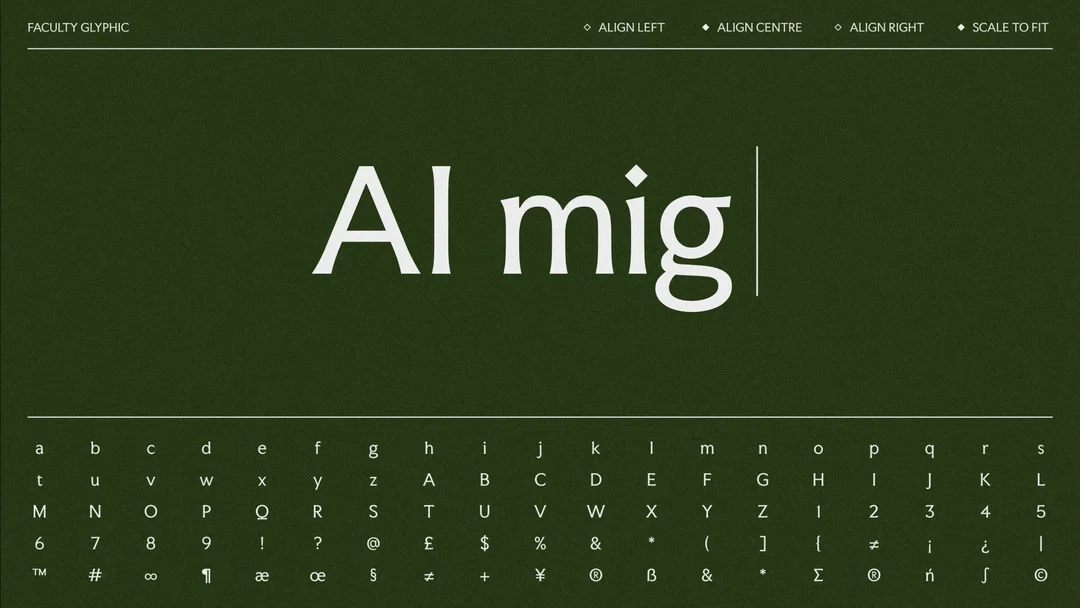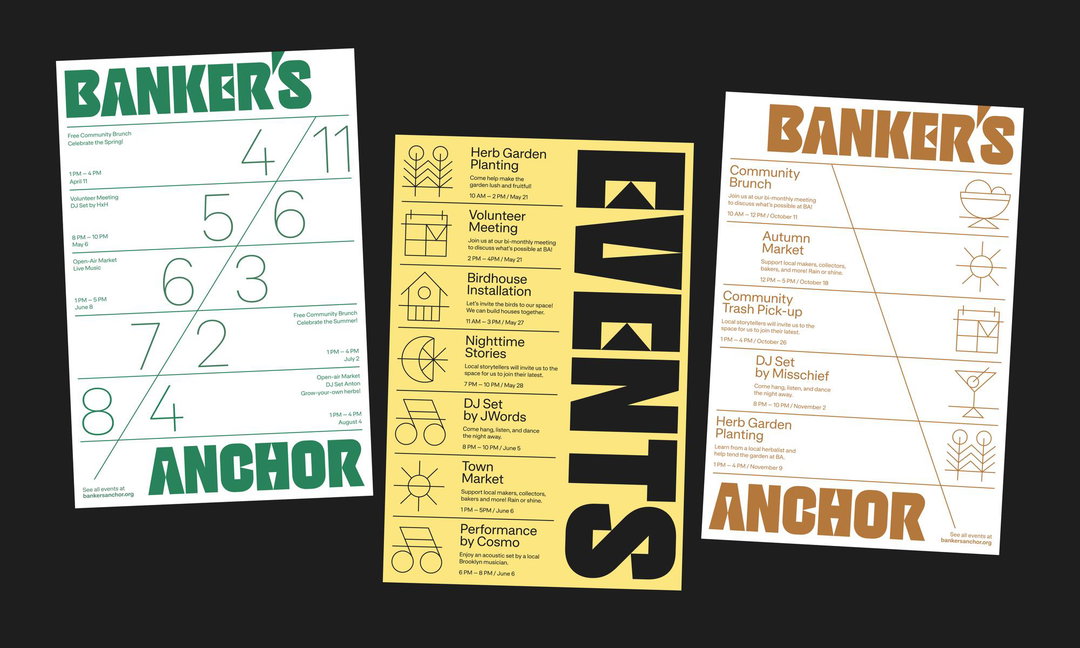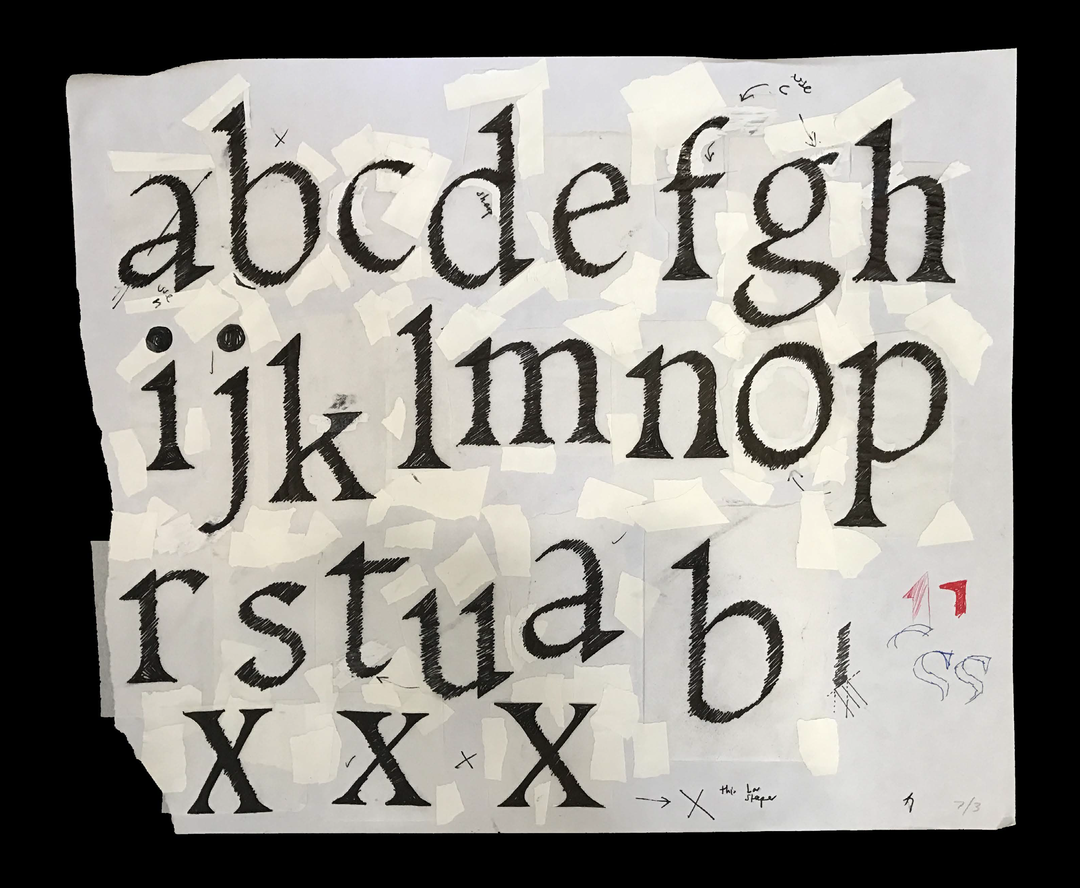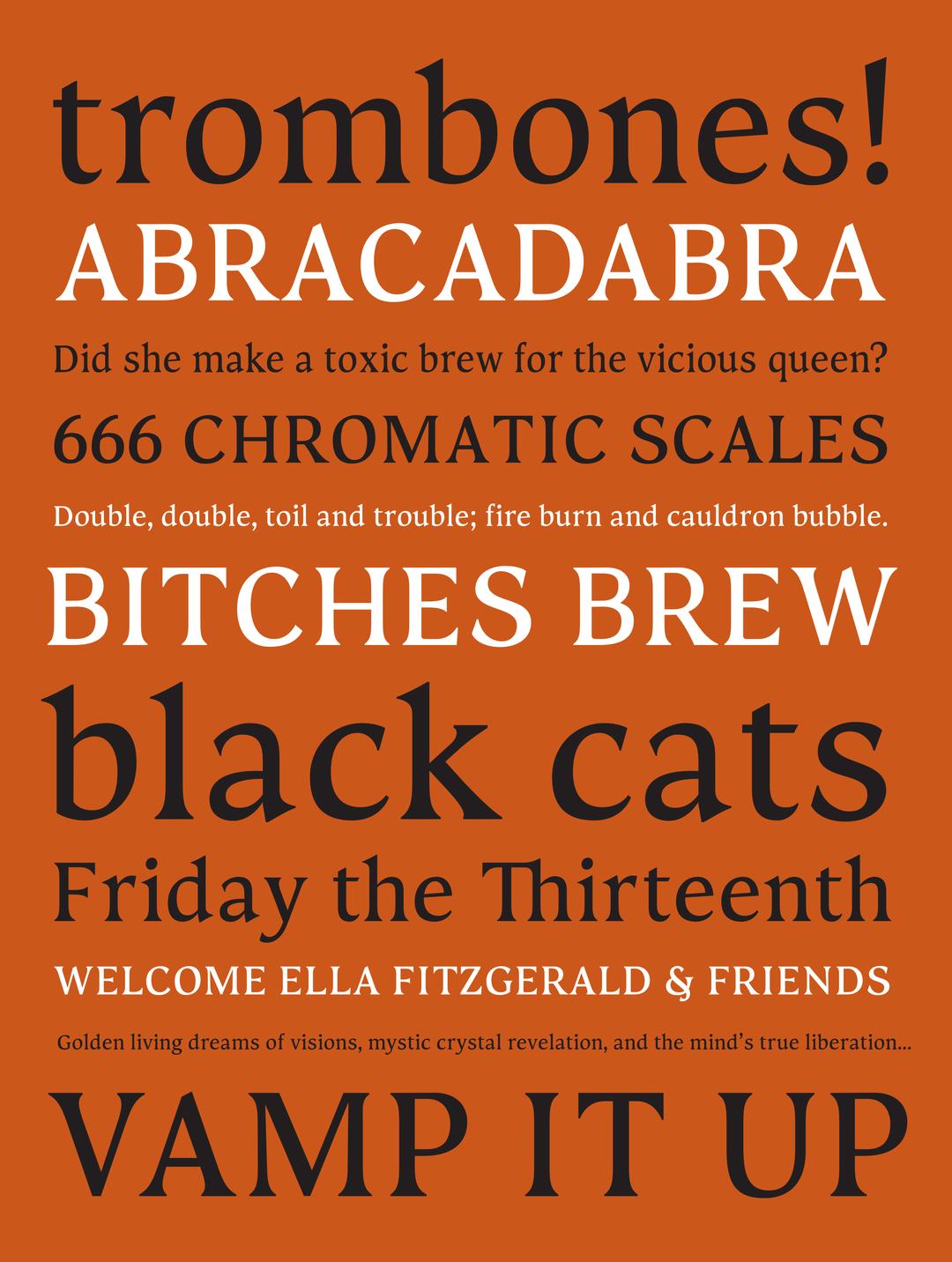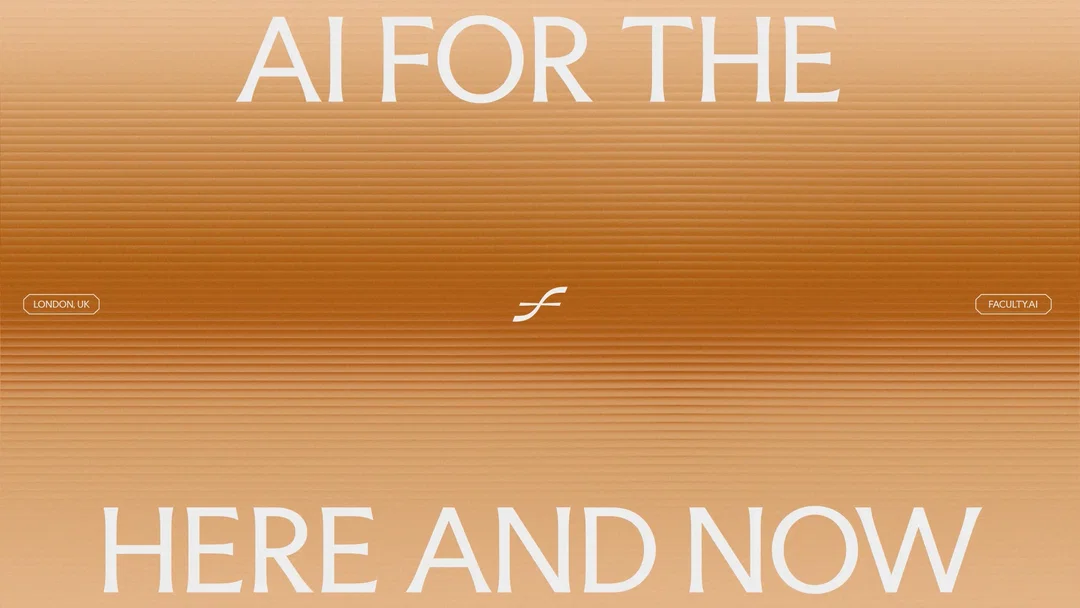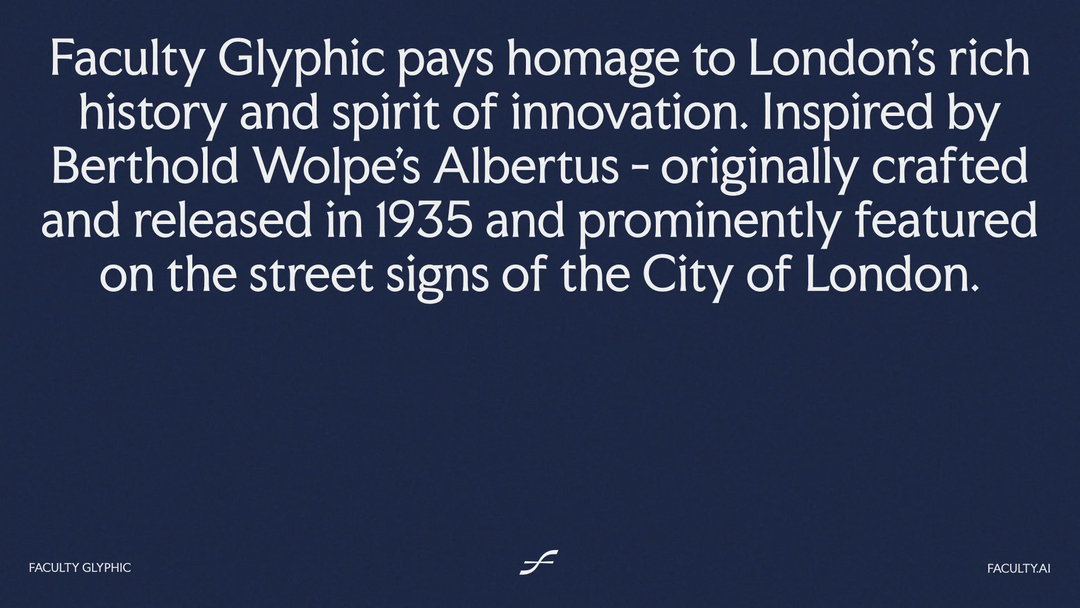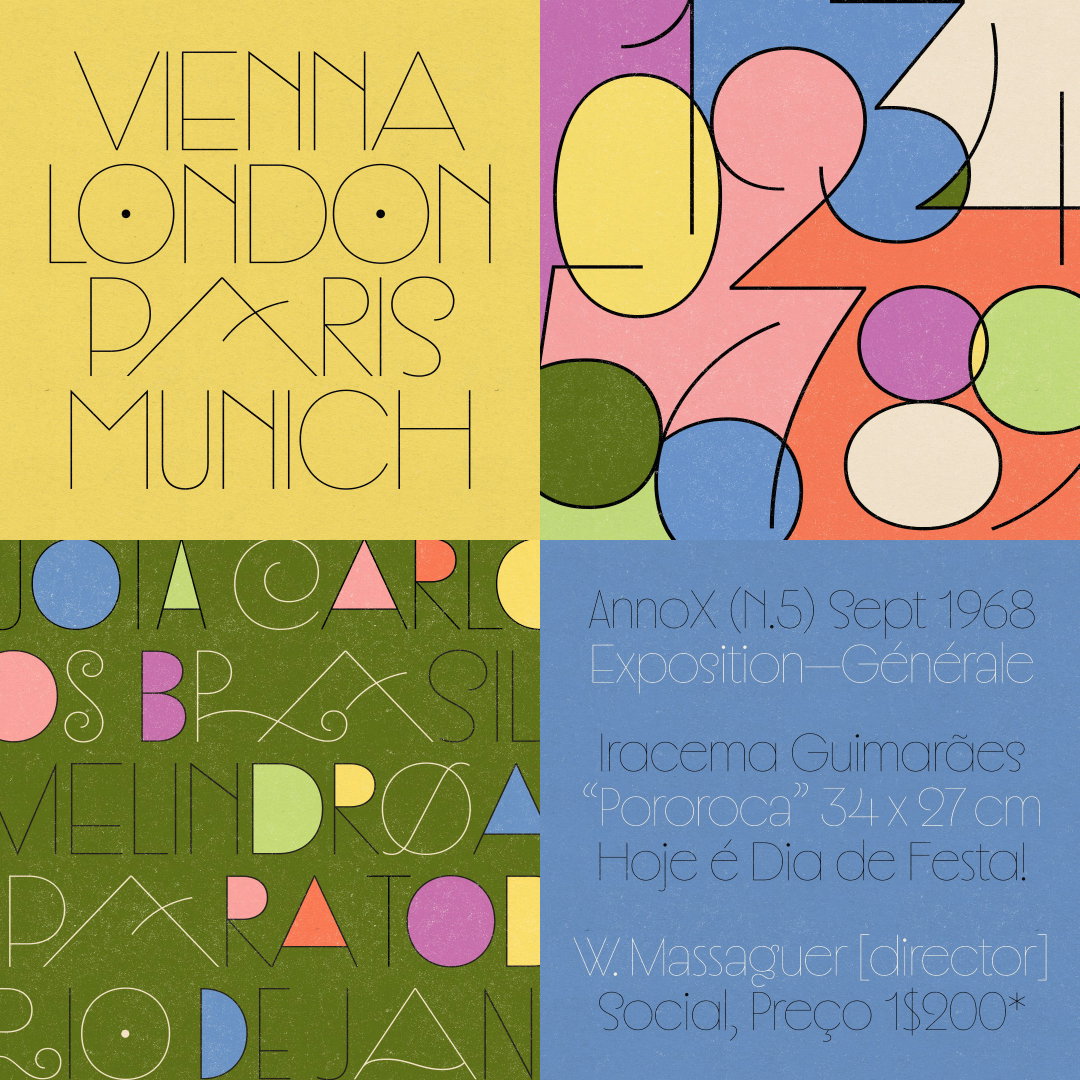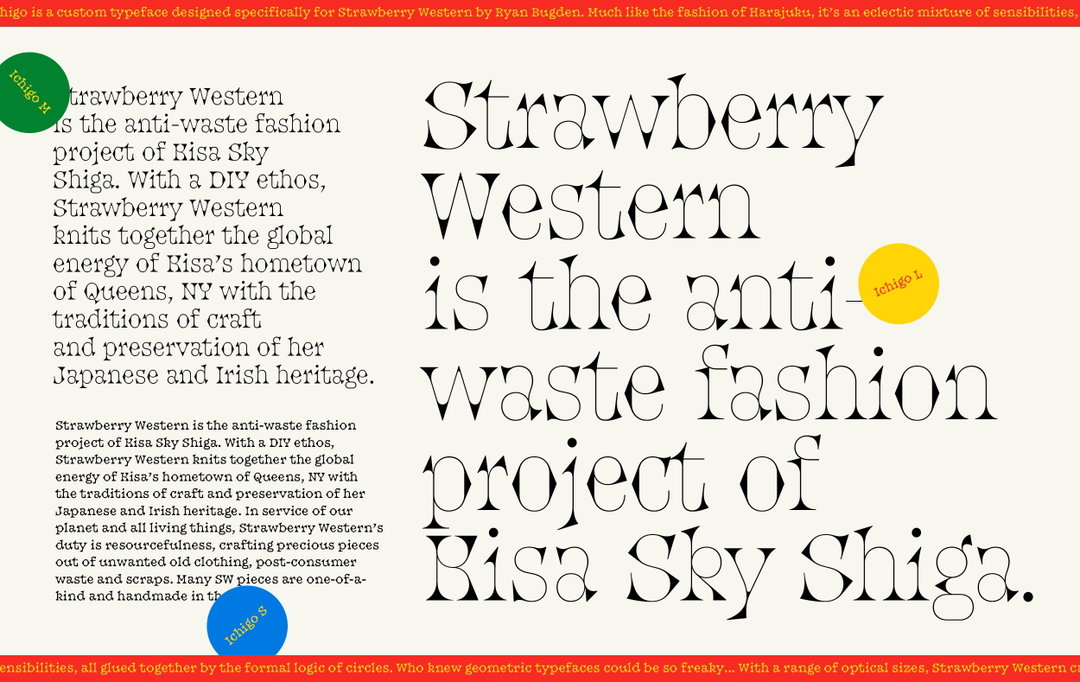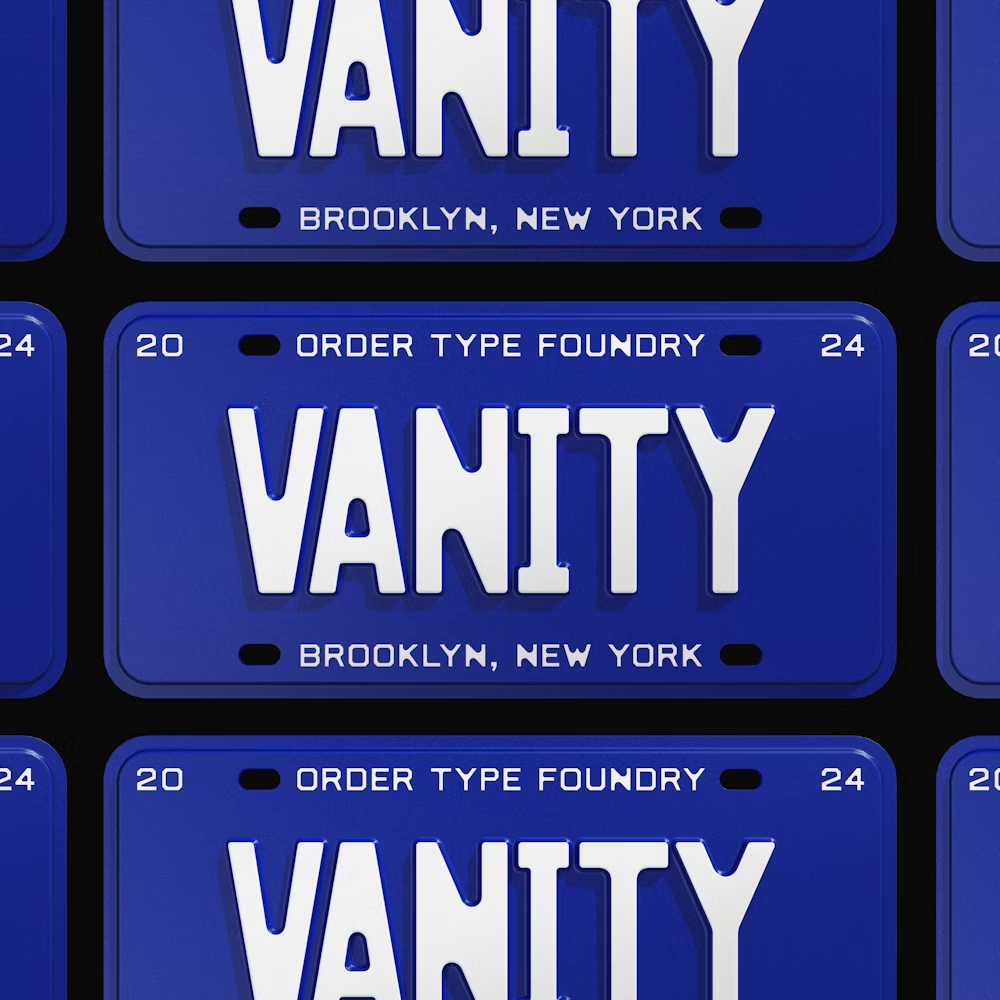
Elizabeth Goodspeed on why design studios are making fonts
Custom type has become branding’s newest obsession, promising control, originality, and ownership – but its rapid rise is reshaping the culture and economy of type design itself.
There’s a certain point in every brand designer’s life when the siren song of type design becomes too hard to ignore. It usually hits after a few too many late nights obsessing over a custom logo, followed by the inevitable question: how hard could a full alphabet really be? A little under a decade ago, I leapt on this very thought by enrolling in the condensed Type@Cooper program – 162 in-class hours packed into 12.5-hour days, four days a week, for five weeks – where I spent hours, nay, days, agonising over the bowl of a lowercase ‘O’. It didn’t take me long to realise I wasn’t built for type design (see my fairly tragic typeface Vamp, below, as proof). Sure, I wanted to have more control over my letterforms, but I definitely didn’t want to spend the rest of my life adjusting kerning pairs in the process.
As typography takes on a larger role in branding, many studios are navigating a similar realisation. They aren’t trying to become full-time type foundries exactly, but they are seeking more dominion over their typography. Increasingly, designers don’t just want to choose typefaces. They want to make their own. Big type, weird type, emotional type – they want it all.
Vamp Specimen (Copyright © Elizabeth Goodspeed, 2018)
Vamp Sketches (Copyright © Elizabeth Goodspeed, 2018)
To contemporary brand builders, typography has become one of the most defining aspects of what makes a brand feel like a brand. It’s the connective tissue that unites campaigns, products, and digital touchpoints – one of the few visual constants in an era of sprawling, global identities. That wasn’t always the case. For most of the 20th century, branding treated typography as background, not backbone.
In the postwar decades, modernist identity design favoured restraint. Helvetica, Univers, and other neutral workhorses projected corporate universality over emotional specificity. Typography’s job was to organise information, not express it. The late 1960s and 1970s introduced a wave of expressive lettering – think of Herb Lubalin Associates’ work for brands like L’eggs – but that flair usually stayed confined to wordmarks or headlines. Visual identity systems still defaulted to pragmatic faces that could scale across materials and subsidiaries. By the 1980s, the palette narrowed again: Garamond Condensed, Bodoni, and other elegant standbys dominated fashion and publishing, while corporate design retreated to austere sans-serifs. But distinctiveness came more from what the text was saying — like Apple’s “Think Different” or New Balance’s “Runners Aren’t Normal” — than from the letterforms themselves. Typography was either expressive or systematic, but usually not both.
L’eggs (Copyright © Herb Lubalin Associates, 1971)
“For most of the 20th century, branding treated typography as background, not backbone.”
Today, type is expected to do everything – carry tone, emotion, and authorship, all while working across billboards, packaging, and app icons. In the busy, UI-dominated spaces of social media, strong letterforms and distinctive shapes help brands cut through the noise. Unlike a photograph or illustration (too specific to simplify) or a colour (too generic to own), typography can do a bit of everything: bold enough to command attention, flexible enough to shrink down small without losing legibility. And it holds one unbeatable advantage over any other brand asset – it literally spells the brand’s name!
The benefit of bold type is particularly pronounced for brands who don’t have a tangible product to sell, like SaaS companies or AI and fintech startups whose offering exists purely in code, service, or experience. In the absence of product photography to rely on, these brands’ typographic systems end up carrying a heavier share of the identity. Creative studio Koto’s identity for Faculty, a London-based applied AI company, is a clear example: its branding relies almost entirely on a custom typeface (Faculty Glyphic, an Albertus-inspired serif) which, alongside a handful of repeating compositional structures and a distinctive gradient, is used to set phrases describing the organisation’s focus and mission. Design studio Order, who also maintain Order Type Foundry (aka OTF – a pun on the common font file format, har har), has enacted similar approaches for its clients. Co-founder Jesse Reed explains that many of the brands Order works with are information-driven organisations selling ideas, not images. For the studio, typography functions as core infrastructure, “a device and a tool that helps them to do their jobs properly”.
Once typography became infrastructure, the logic of making your own followed naturally. If typography shapes how a brand moves, speaks, and adapts across platforms, why settle for something off the shelf? Hundreds of brands might share the same grotesk, geometric sans, or quirky serif, but a custom typeface lets a brand sound like itself. Custom type can also solve problems that licensable fonts rarely address: accommodating multiple writing systems, including special product-specific glyphs, or optimising for unusual display formats.
Koto: Faculty (Copyright © Koto, 2025)
Koto: Faculty Typeface (Copyright © Koto, 2025)
The origin of custom type is often creative rather than technical – a need for letterforms that echo a brand’s physical environment, emotional tone, or specific ethos. Brooklyn design studio R&M’s work for Banker’s Anchor, a public plaza in Greenpoint, exemplifies how helpful tailored type can be as connective tissue between form and idea. For the project, the studio developed Triad, a typeface whose triangular counterforms and crossed contours referenced the plaza’s real world triangular footprint – a peculiar geometry no pre-existing typeface could have contained. Co-founder Ryan Bugden says that “custom type as a differentiator for our clients is essentially a given – it usually becomes the glue that binds the whole identity together.” At other studios, emotional resonance is just as important as technical specificity. &Walsh’s Type of Feeling, the studio’s new retail type foundry, was founded with the goal of creating fonts that “evoke a specific emotional response”. In a chaotic visual landscape, brands have milliseconds to signal tone. As a primary container for meaning, typography inevitably carries an enormous share of that emotional load.
The economic logic is equally persuasive. Over the past decade, companies like Monotype have pushed subscription-based licensing, which ties font fees to shifting metrics like web traffic or app use. This takes the pay-for-play model once reserved for web fonts and applies it to desktop use – the license needed for logos and other core brand assets, and one traditionally covered by a single, one-time fee. With these systems, brands no longer own their fonts outright; instead, they pay indefinitely for continued access. Monotype’s Standard plan, for instance, costs $20,500 per year for five users. It includes access to five commercial fonts (though any variable font counts as five) and caps usage at 20 million page views and 10 million digital ad impressions. The cheaper plan, $2,500 per year, offers three typefaces and limits monthly page views to 1.5 million. By comparison, a one-time commercial license from an independent foundry like Dinamo – say, a single cut of Marfa for a company of 5,000 employees – includes desktop, app, web, social media, video, and logo use, plus third-party sharing rights, for roughly $10,500. A steep price, but once it’s paid, it’s done.